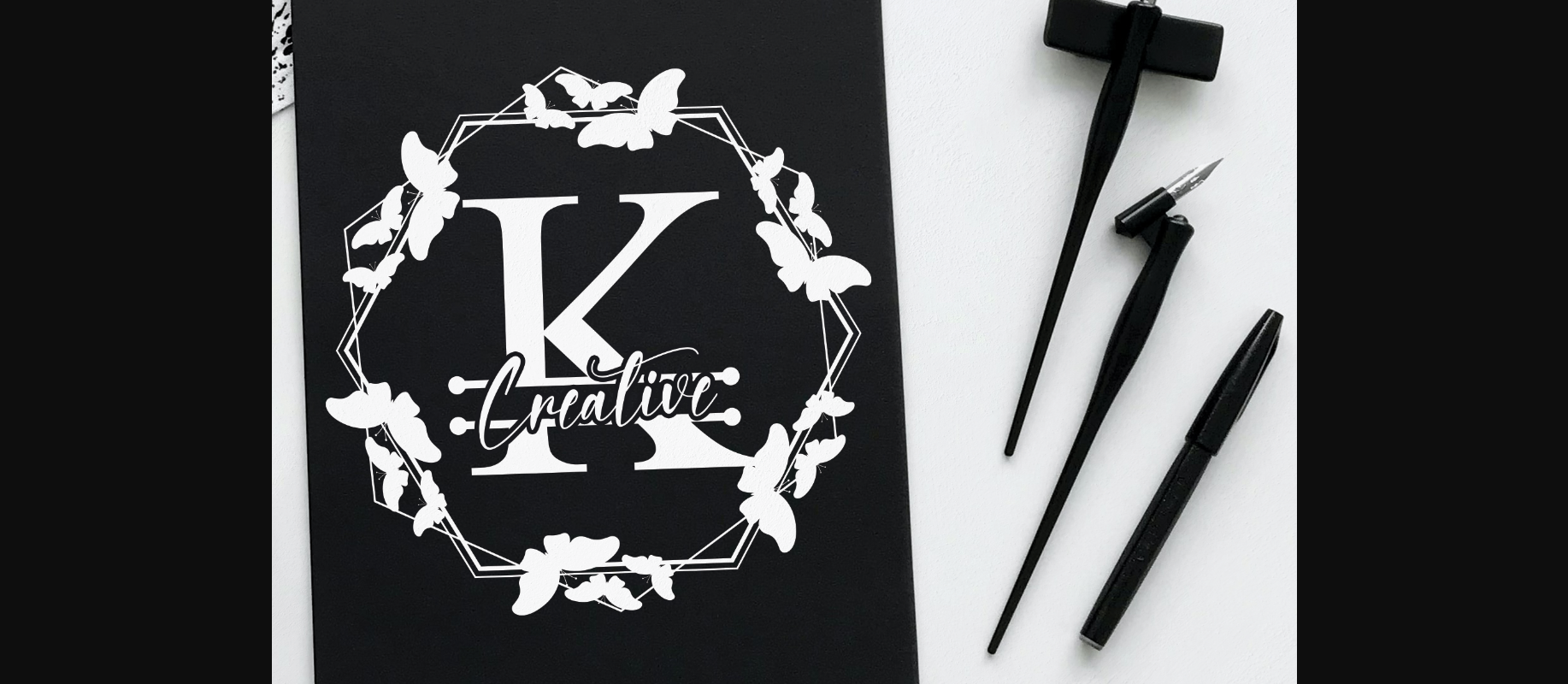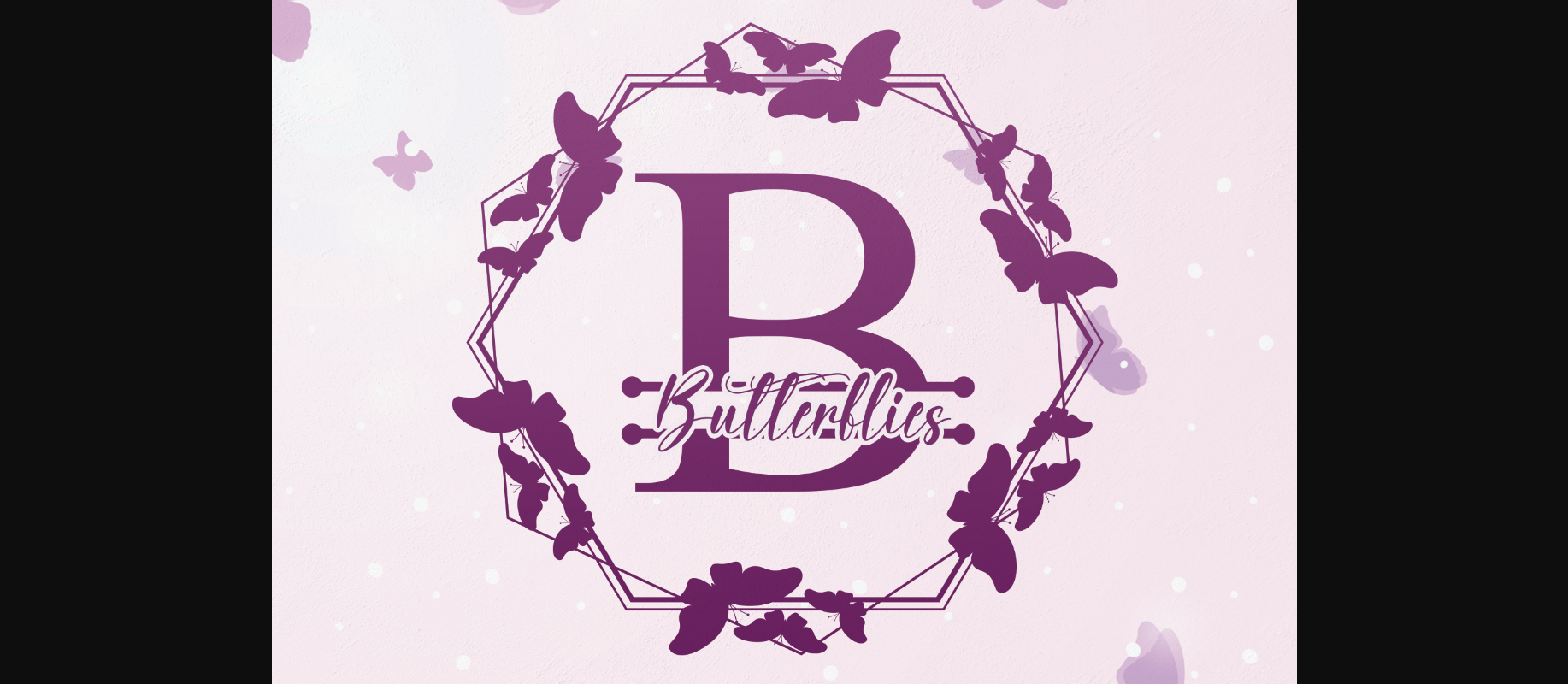
About Butterflies Font
Butterflies is a sweet decorative font. Add this romantic and lovely looking font to each of your love letters, wedding invitations or favorite design ideas, and you will be astounded by the outcome.